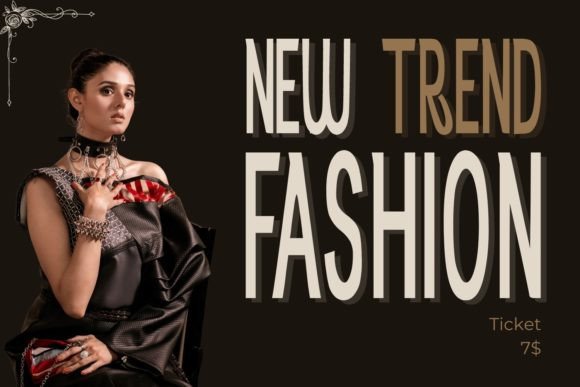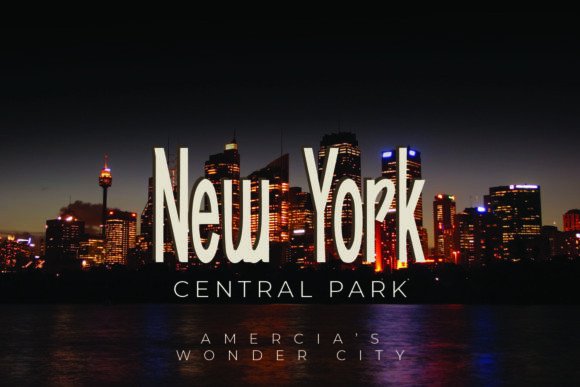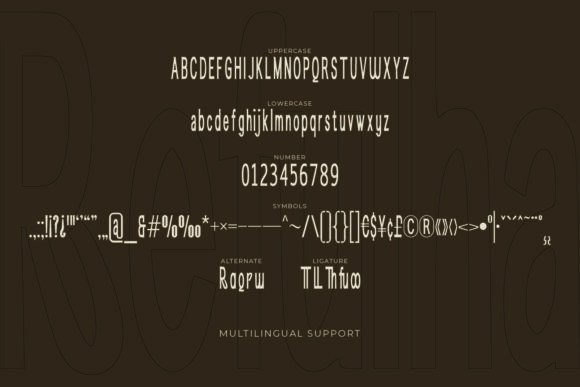
Introduction to Refullha Font
Have you ever stared at a blank canvas, searching for the perfect font to bring your creative project to life? The blank page can be daunting, but with the right design resource, anything is possible. Today, we’re excited to introduce you to Refullha Font, a sleek and condensed Sans Serif font that embodies modern simplicity.
With its clean lines and compact design, Refullha Font is perfect for projects where space efficiency and contemporary aesthetics are key. Whether you’re working on a logo, headline, or any design that demands a refined, yet impactful, typographic presence, Refullha Font is an excellent choice. This high-quality font is available for free download, making it an invaluable asset for designers looking to elevate their visuals with a touch of streamlined elegance.
Key Features of Refullha Font
- Unique, hand-crafted design that stands out from standard fonts, perfect for adding a personal touch to creative projects.
Honest Review: Refullha Font
I recently had the chance to work with the Refullha Font, and I must say it’s been a game-changer for my creative projects. This design resource has truly elevated my designs with its sleek and modern aesthetic.
Here are some aspects that work well with the Refullha Font:
- ✨ High-quality design: The font is crisp and clear, making it perfect for print or digital designs.
- ⚠️ Limited font styles: While the font is modern and sleek, it’s limited to a few styles, which might not be ideal for designers who prefer a wide range of options.
- ⚠️ Not ideal for bold typography: The font is best suited for subtle, elegant typography, rather than bold, attention-grabbing headlines.
Overall, I’m impressed with the Refullha Font and would definitely recommend it to designers looking for a high-quality, modern design resource for their creative projects.
The Refullha Font is a versatile and high-quality design resource perfect for creative projects. This font features a transparent background, making it easy to customize and combine with other design elements.
Tips for Getting the Most Out of Refullha Font
For optimal results, use the Refullha Font in conjunction with high-quality images and design elements. Experiment with different font sizes and styles to create a visually appealing design.
The Refullha Font is perfect for a variety of creative projects, including:
- Brochures and flyers
- Infographics and presentations